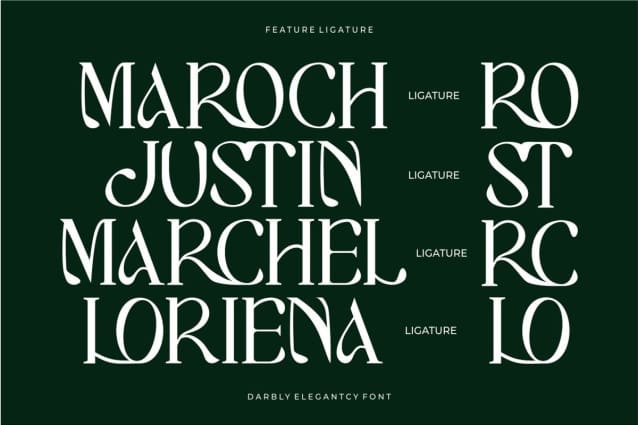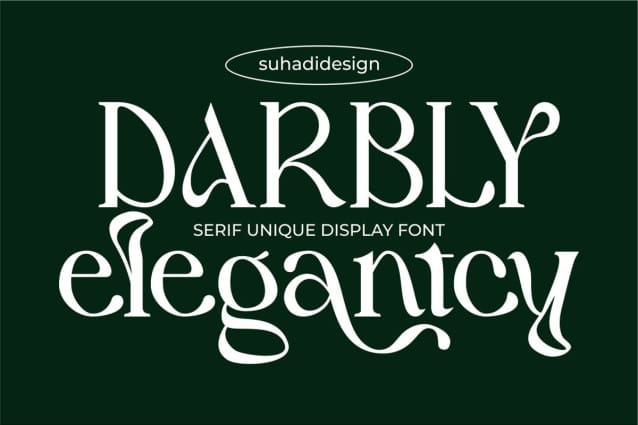
Darbly Elegantcy Font
Darbly Elegantcy Font is a unique serif typeface with ligatures and alternates. to become a market favorite. We made this font clear, unique, easy to read, and easy to use. Darbly Elegantcy Font is a great choice for magazine design, newspaper, fashion, classy design, newspaper, modern, book, brand name, branding and other projects. The DarblyElegantcy font is here to improve the quality of your designs.